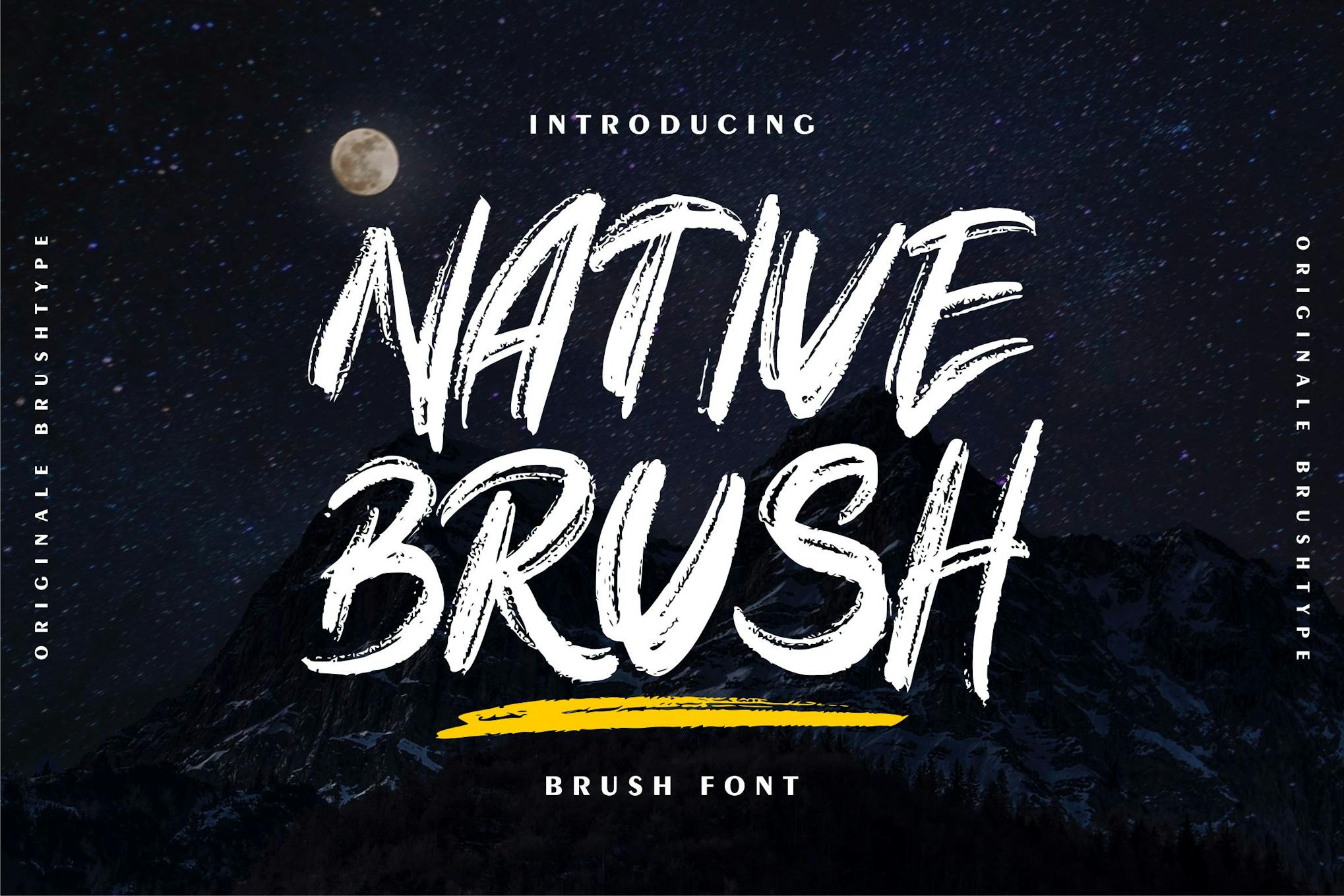
Native Brush Font
The Native Brush Font is a beautiful calligraphy-style brush font perfect for various uses, ranging from greeting cards to business materials. With a rich set of alternate characters that can be accessed easily through different programs such as Adobe Illustrator, Photoshop, InDesign, Corel Draw X version, and Microsoft Word, it is both extremely versatile and user-friendly. This font supports multilingual characters and comes with PUA Unicode for easier access.
Holigan – Brush Font
Holigan is a dynamic brush font characterized by rough, dry brush strokes, giving a raw, natural edge to your design projects. Offering a blend of sharpness and quickness in its stroke style, it’s perfect for adding a hand-drawn touch to your logos, social media posts, merchandise, book covers, and much more. This offering comes with a host of glyphs, ligatures, and multilingual support, and is compatible with Adobe and Microsoft software.
Silent Paintbrush Font
Introducing the Silent Paintbrush Font, an artistic, elegant script font with an emphasis on large capital letters. Boasting a unique brush scratch feature that adds a textured, dynamic edge to each letter, this font is designed for legibility and harmony. Ideal for larger text sizes, its versatile use makes it a fit for logos, posters, merchandise designs, and more. With multilingual support and numerals and punctuations included, this font can elevate your designs to a new level of sophistication and creativity.
Montego Bay
Montego Bay is a charming paint brushed script font with a contemporary, friendly appeal. It’s versatile, making it perfect for uses ranging from logos and branding to invitations and social media posts. The pack includes uppercase, lowercase, numeral, punctuation font assets, and comes in TrueType, OpenType, and WOFF files.
Ocean Rush – Brush Font
Ocean Rush is a unique brush font that captures the aesthetics of hand-painted typography with a novel fading stroke effect. This easy-to-use, versatile font stands out on both light and dark backgrounds. It offers regular and slant variations with features that include capitals, numerals, and punctuation. Ideal for shirts, posters, logos, and more, Ocean Rush lets you assemble and design your words beautifully.
Italiano Hand Painted Font
The Italiano Hand Painted Font is a dynamic brush font offering both regular and slant versions, complete with all Central European glyphs. Its energetic strokes and sharp edges make it perfect for bold messages, logos, and name tags. Use it to add zest to product packaging, social media posts, greeting cards, and clothing designs. The set includes additional swashes and splatters, complementing a full alphabetic range for a striking text style. It’s compatible with various platforms like Cricut, Silhouette, PicMonkey, and Photoshop.